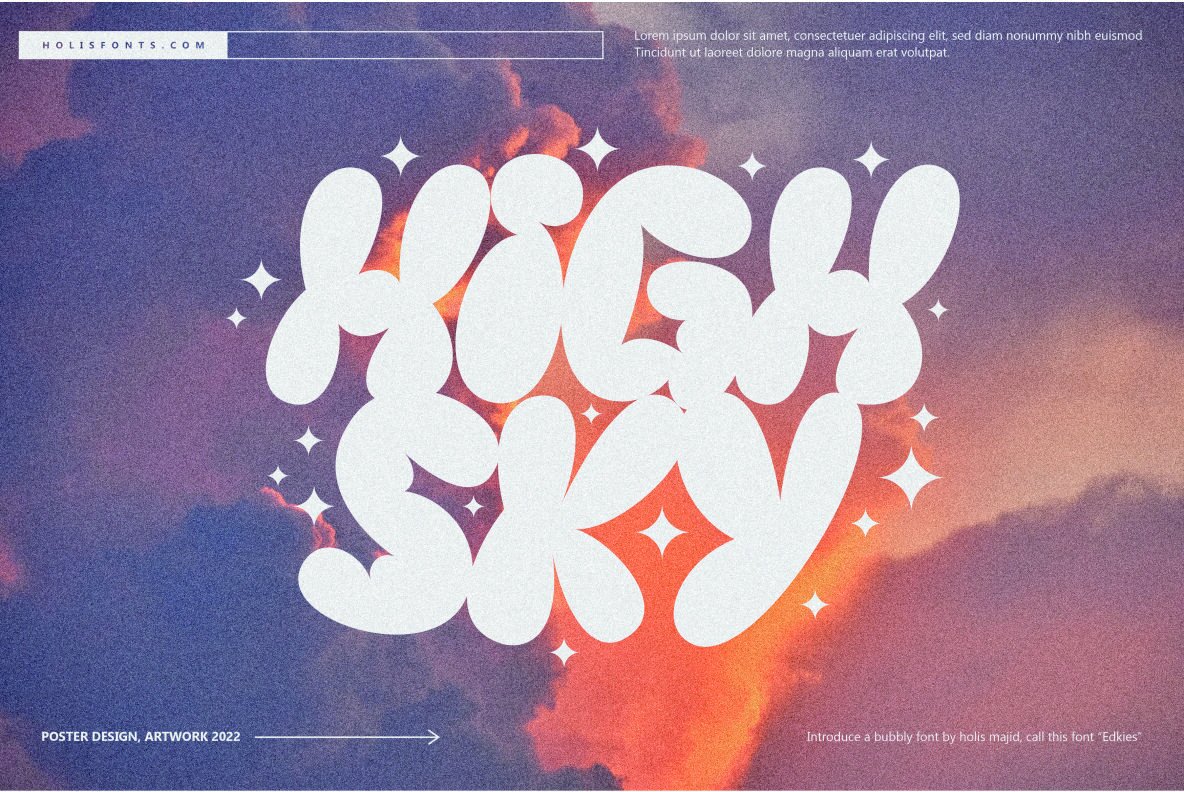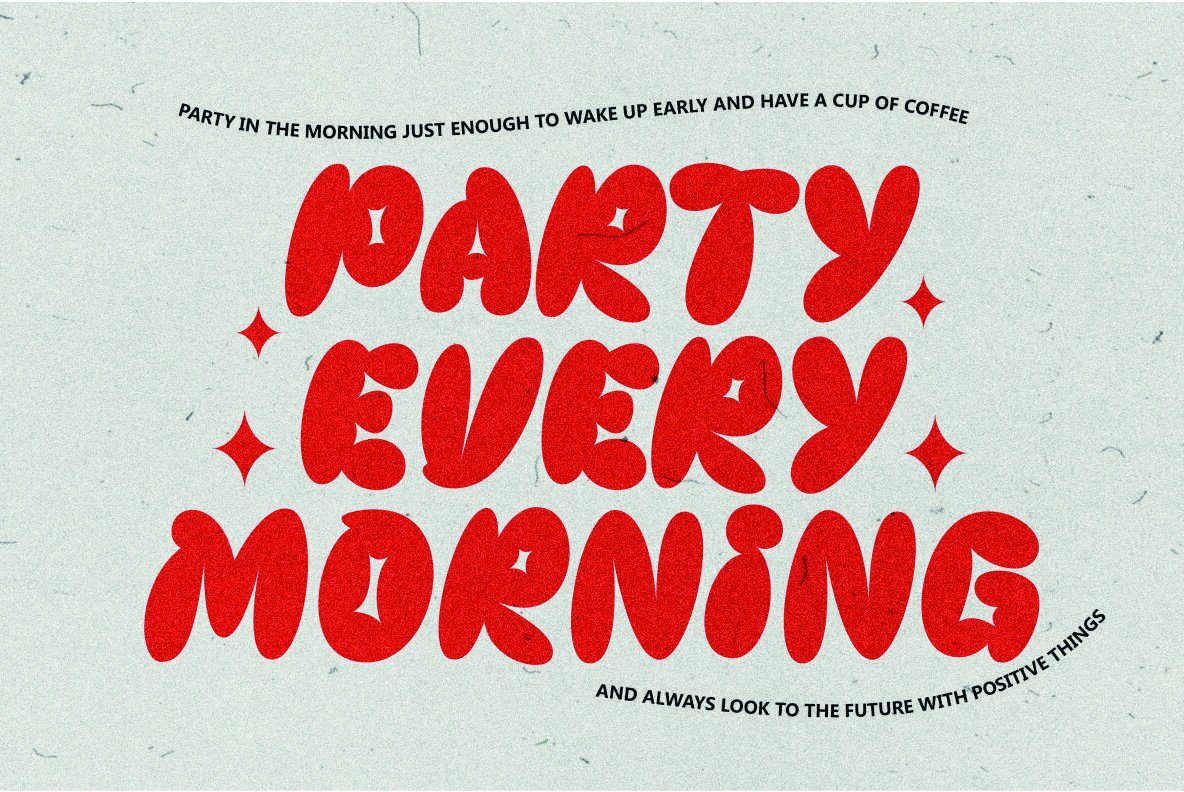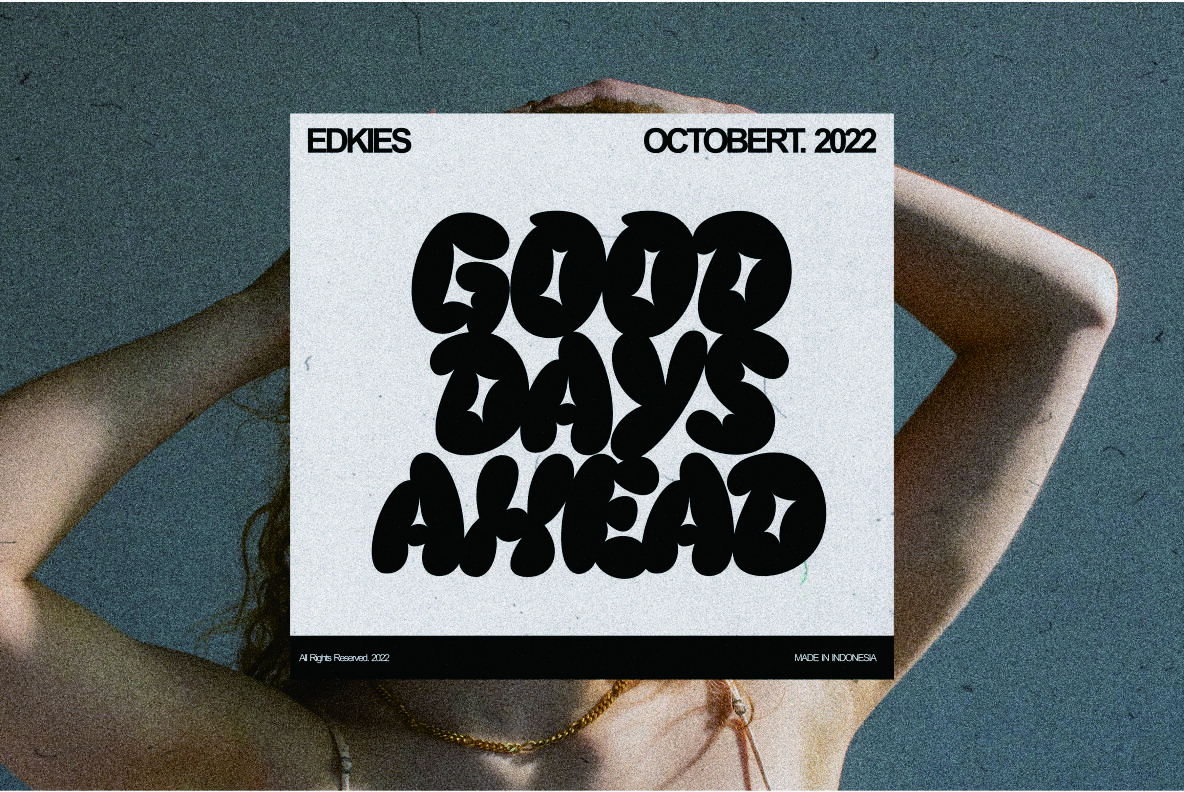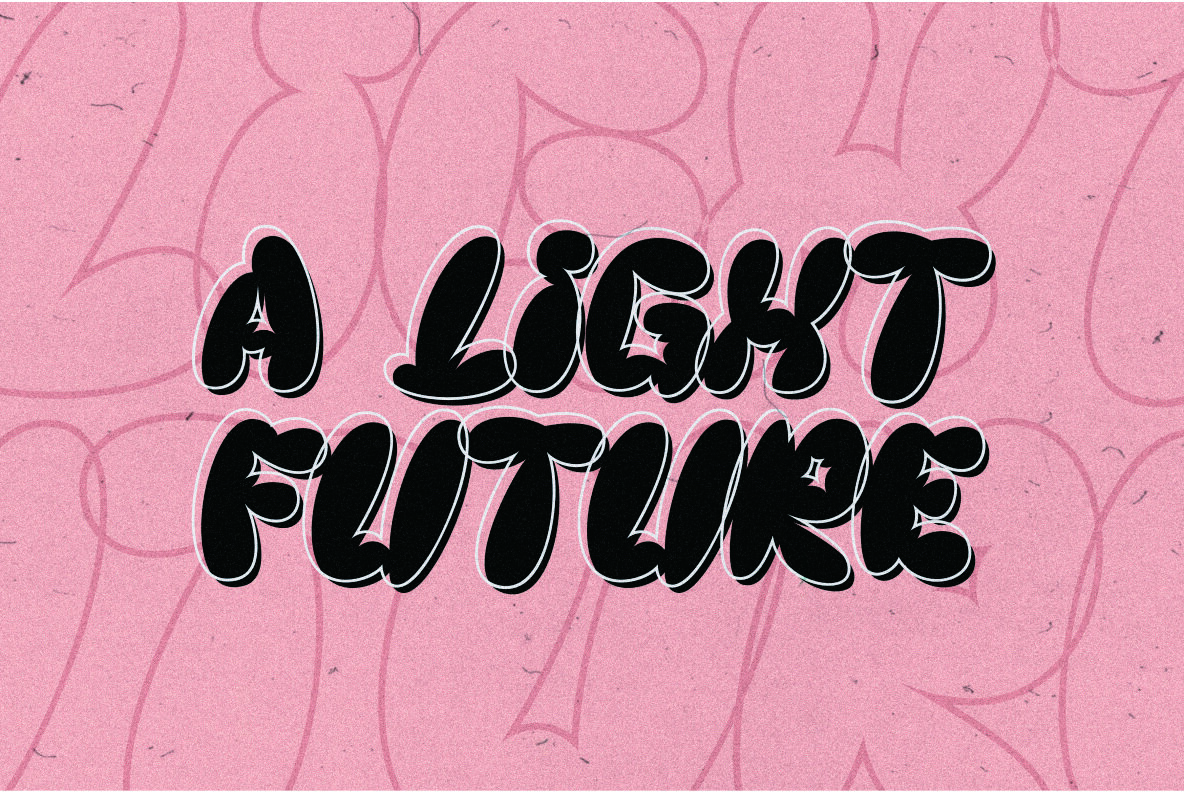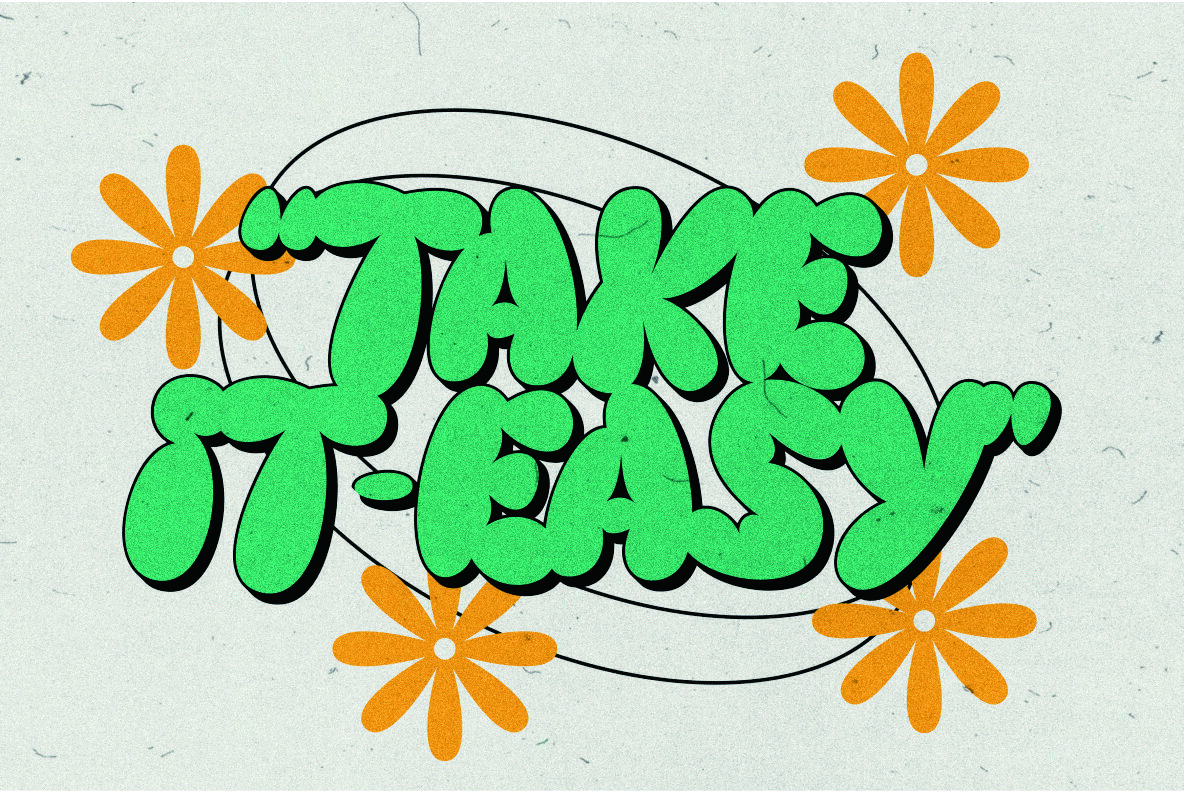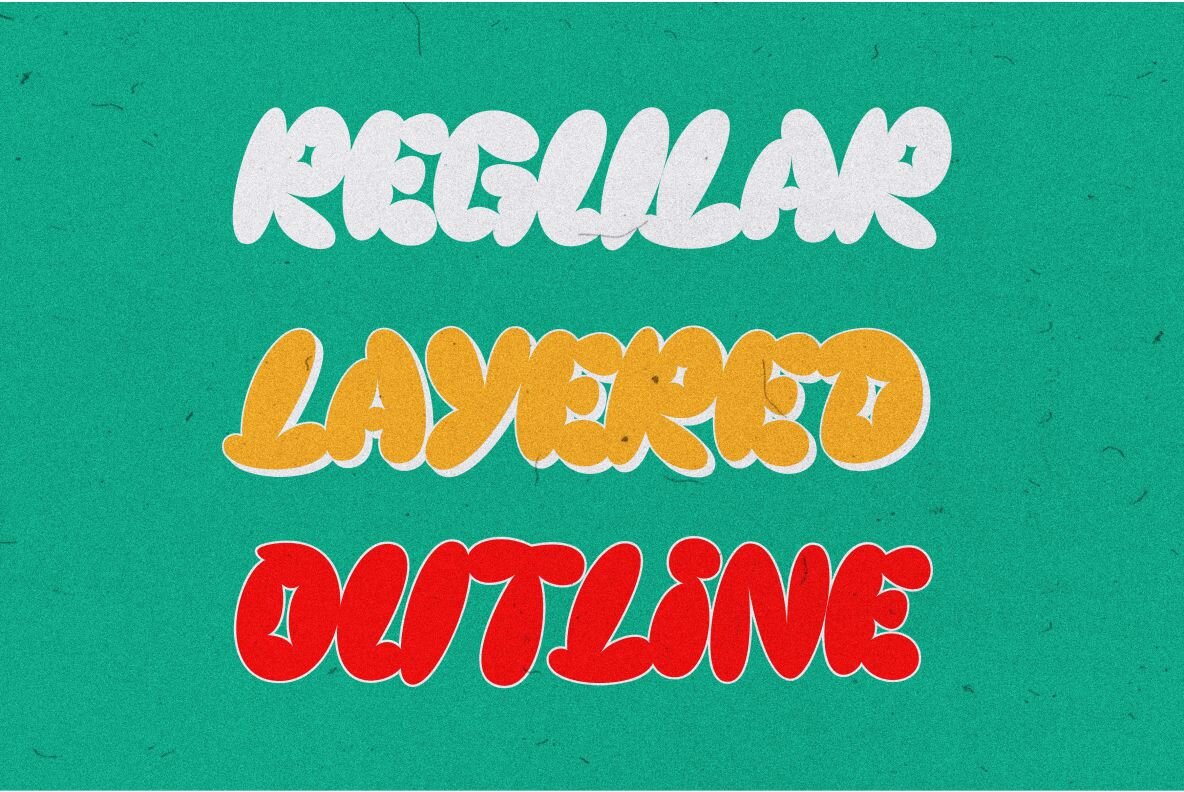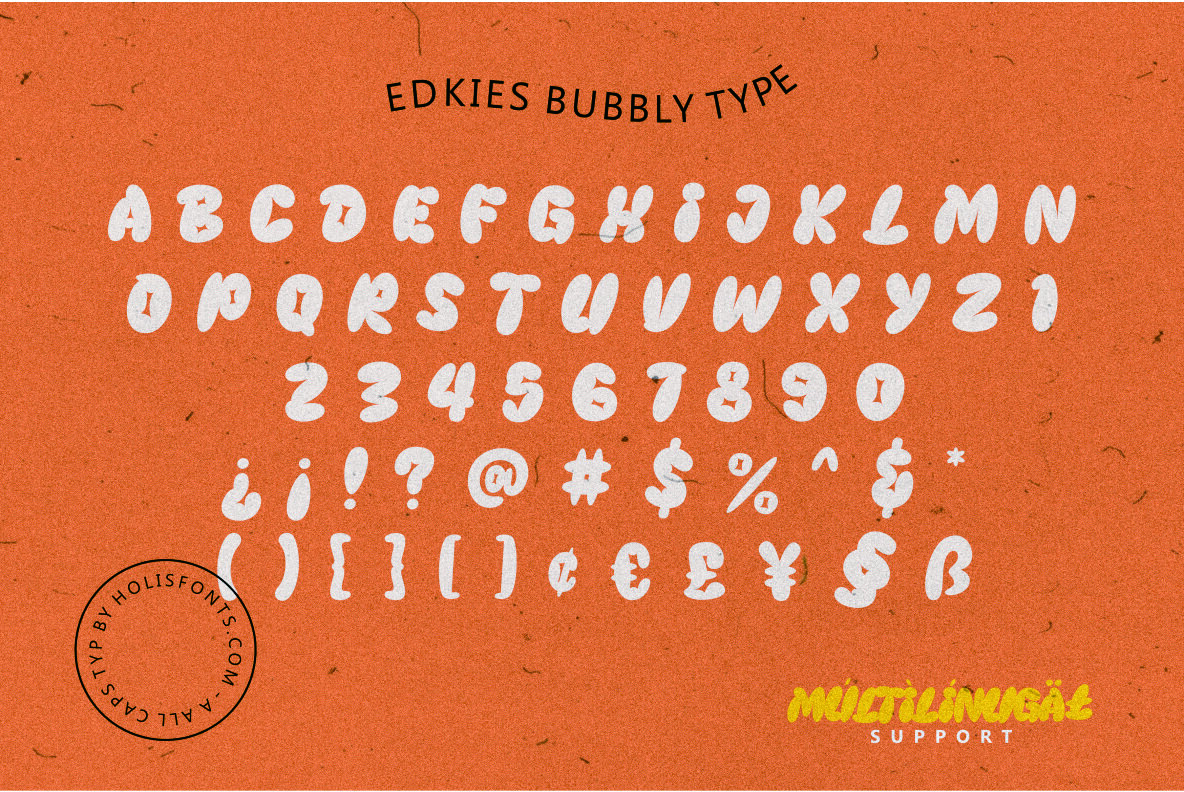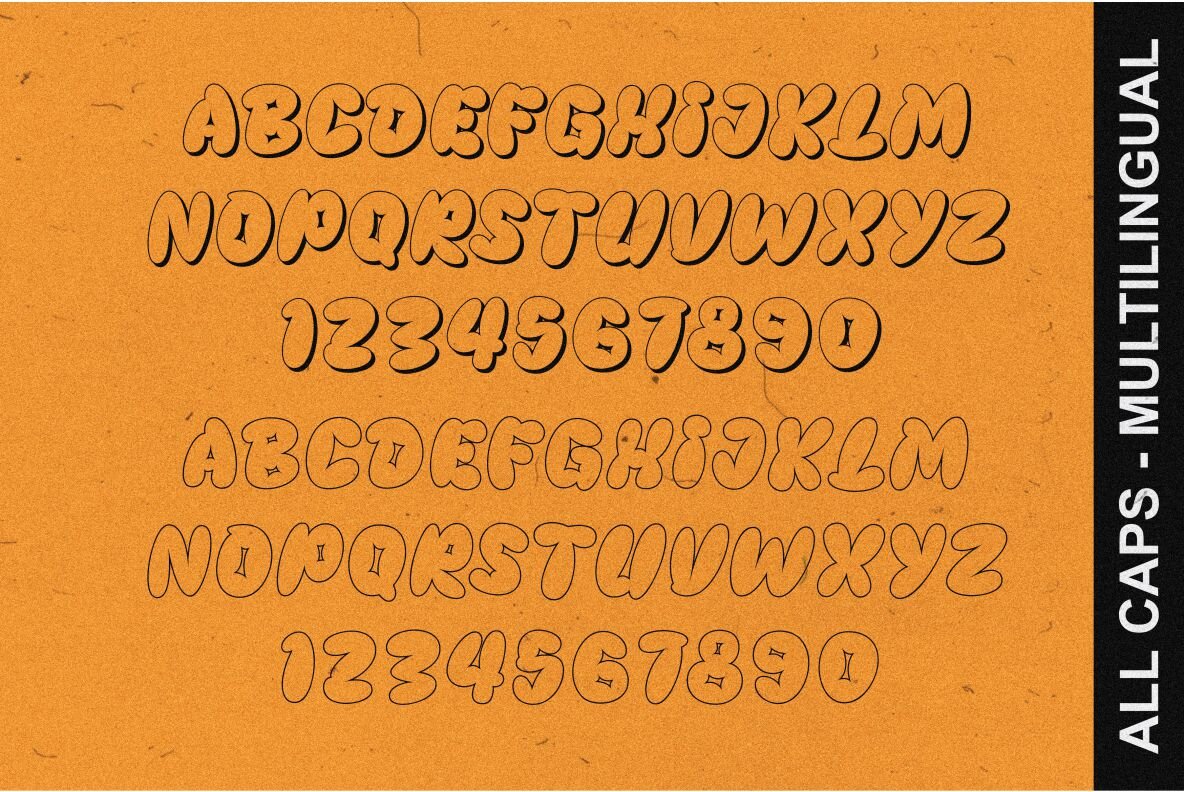
Edkies Bubbly Font
A cute chubby and bubbly font for your design projects.
Edkies is one of the bold, cute and funky collection fonts, a unique style and a bit messy is the concept of this font, it is available in uppercase only and multilingual supports.
Edkies font include 3 styles in Regular, 3D and, Outline